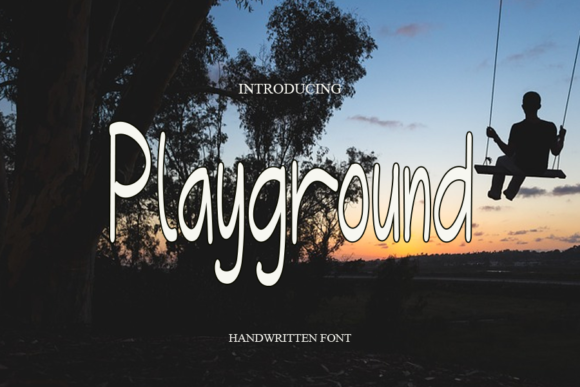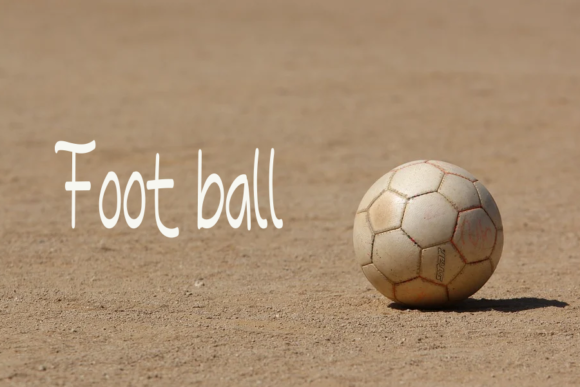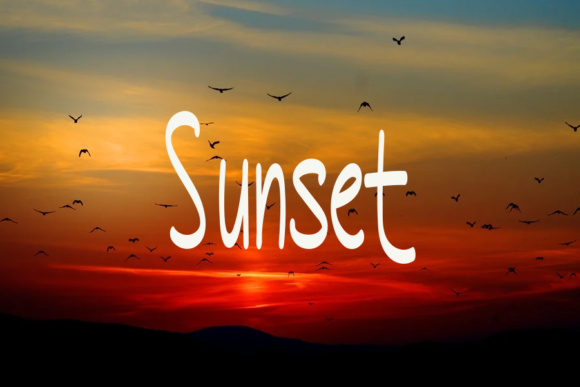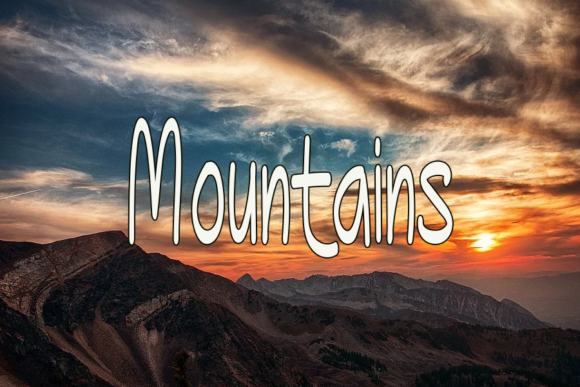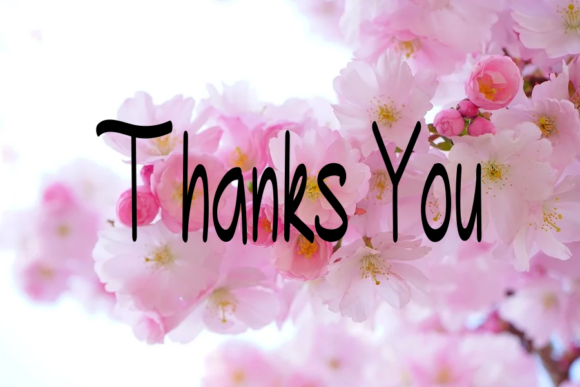
Playground Font
About Playground Font
Playground
is a sweet and friendly handwritten font. Its natural and unique style makes it incredibly fitting to a large pool of designs. The only limit is your imagination!